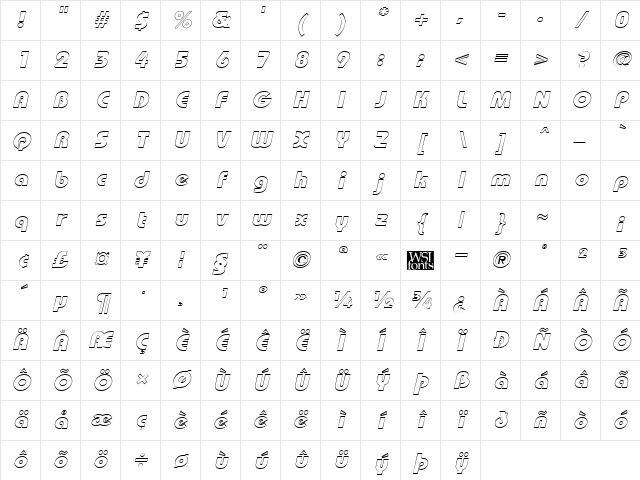
Complete BordeauxBlackOutline Italic glyph index. Displaying only characters natively supported by BordeauxBlackOutline Italic font.
BordeauxBlackOutline is built around its visual character rather than neutral utility - its distinctive forms are designed to make an impression at display sizes. The slanted form adds forward momentum and visual energy.
Font Pairing: Pair with a clean neutral sans-serif for body copy to let BordeauxBlackOutline's character lead without overwhelming the composition.
Pro Tip: Use BordeauxBlackOutline exclusively at display sizes - it was designed to be seen, not read at length. Let a neutral companion handle body copy.